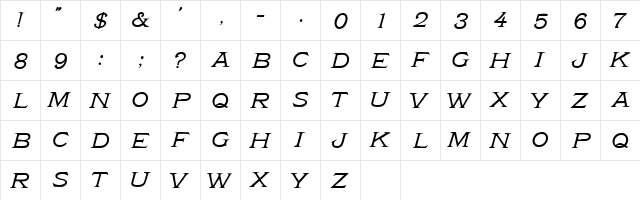
Victoria HPLHS
Design Context for Victoria Typeface
Victoria offers clean, dependable letterforms without strong stylistic allegiance, making it a practical choice for designers who need flexibility.